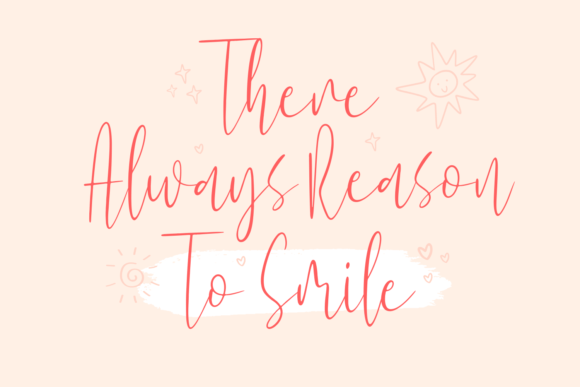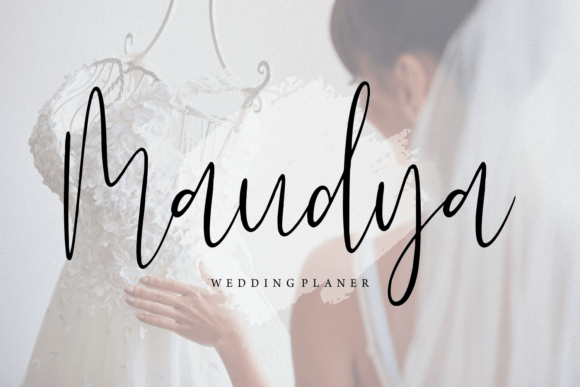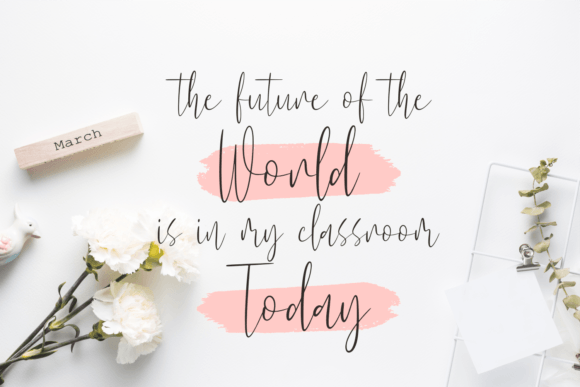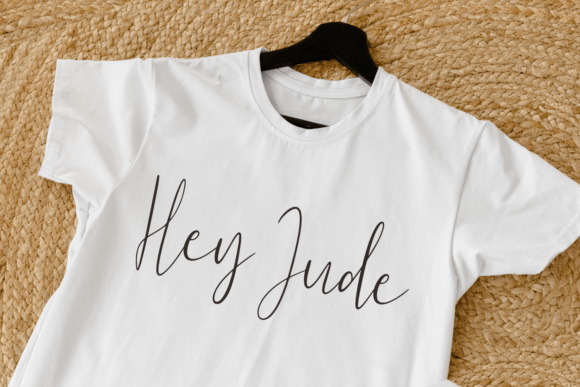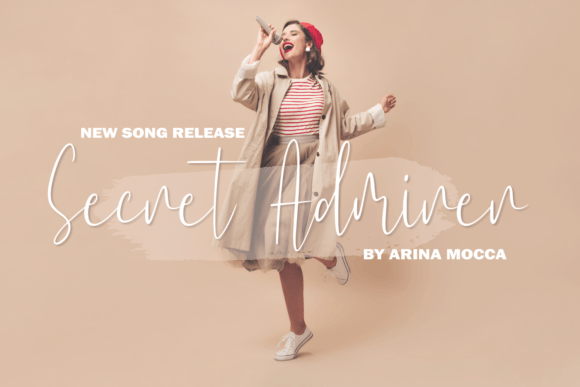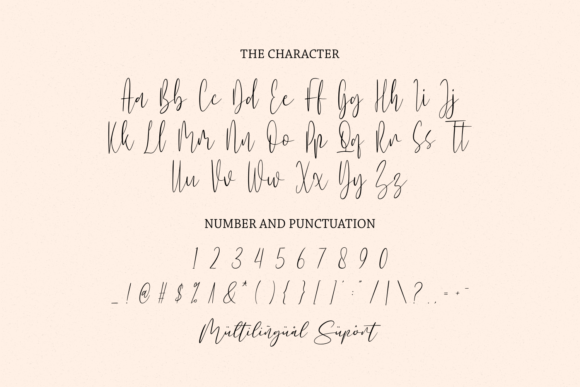
Introduction to Kishplay Font
Remember the moment when you finally find the perfect font to elevate your creative project? The rush of excitement, the sense of accomplishment, and the confidence boost that comes with it? For designers, this moment is priceless. It’s the difference between a mediocre design and a stunning one. And, if you’re looking for that perfect font to make your brand shine, look no further than the Kishplay Font.
This high-quality, elegant handwritten font is designed to capture attention and leave a lasting impression. With its transparent background and delicate strokes, Kishplay Font is perfect for headings, logos, ads, printed quotes, packaging, websites, and social media. Whether you’re working on a creative project or just need a design resource, this font is sure to impress. And the best part? It’s available for free download, making it a valuable addition to any designer’s toolkit.
Key Features of Kishplay Font
- High-quality design resource suitable for creative projects, offering a unique and stylish look.
- Perfect for designers, artists, and creatives looking for a high-quality design resource to elevate their projects and add a touch of sophistication.
Honest Review: Kishplay Font
I recently stumbled upon the Kishplay Font, and I must say it’s been a pleasant discovery. As a designer, I’m always on the lookout for high-quality fonts that can elevate my creative projects. The Kishplay Font delivers in terms of style and versatility.
What works well for me is the transparent background, which makes it easy to layer and combine with other design elements. The font’s modern aesthetic is perfect for a variety of design projects, from digital interfaces to print materials.
Here are some key features that I appreciate:
- Transparent background for seamless layering
However, I do have a few concerns:
- ⚠️ Limited language support, which may be a hindrance for some users
- ⚠️ Not ideal for complex, multi-page documents due to its modern, single-line style
Overall, I’m impressed with the Kishplay Font. It’s a valuable addition to my design arsenal, and I’m excited to see how it performs in future projects. If you’re a designer looking for a high-quality, modern font, the Kishplay Font is definitely worth checking out.
Design Tips
To get the most out of Kishplay Font, use it in combination with a transparent background to create a unique design effect. You can also experiment with different font sizes and colors to add depth and interest to your design.
Kishplay Font is a versatile design resource that can be used in a variety of creative projects, including logo design, infographics, and social media graphics. Its high-quality design makes it an ideal choice for designers looking for a unique and eye-catching font.